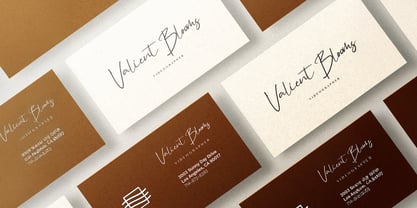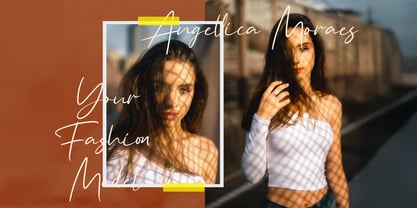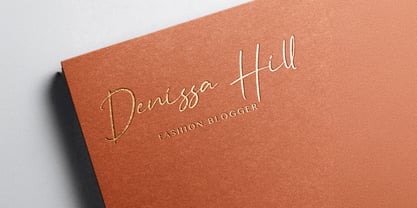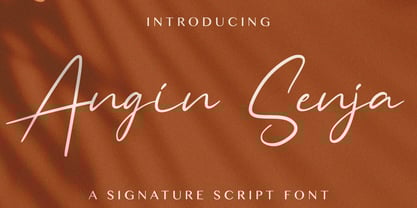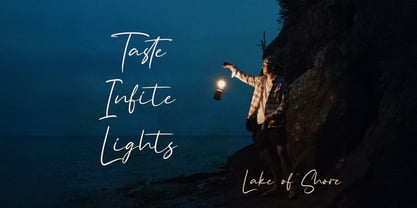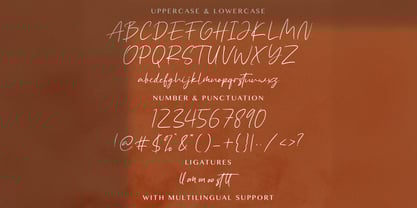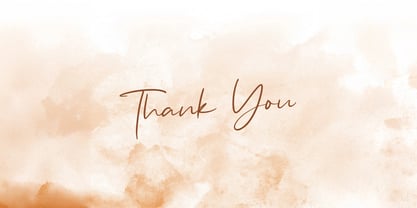
The Angin Senja Font Family was designed by Virgiawan Listanto and published by Stringlabs Creative Studio. Angin Senja contains 1 styles.
Angin Senja is a soft and elegant handwritten font that captures the calm beauty of twilight moments. With its smooth strokes and gentle flow, this font brings a heartfelt, natural touch to any design perfect for expressing emotion, warmth, and simplicity.
Designers: Virgiawan Listanto
Publisher: Stringlabs Creative Studio
Foundry: Stringlabs Creative Studio
Design Owner: Stringlabs Creative Studio
Angin Senja